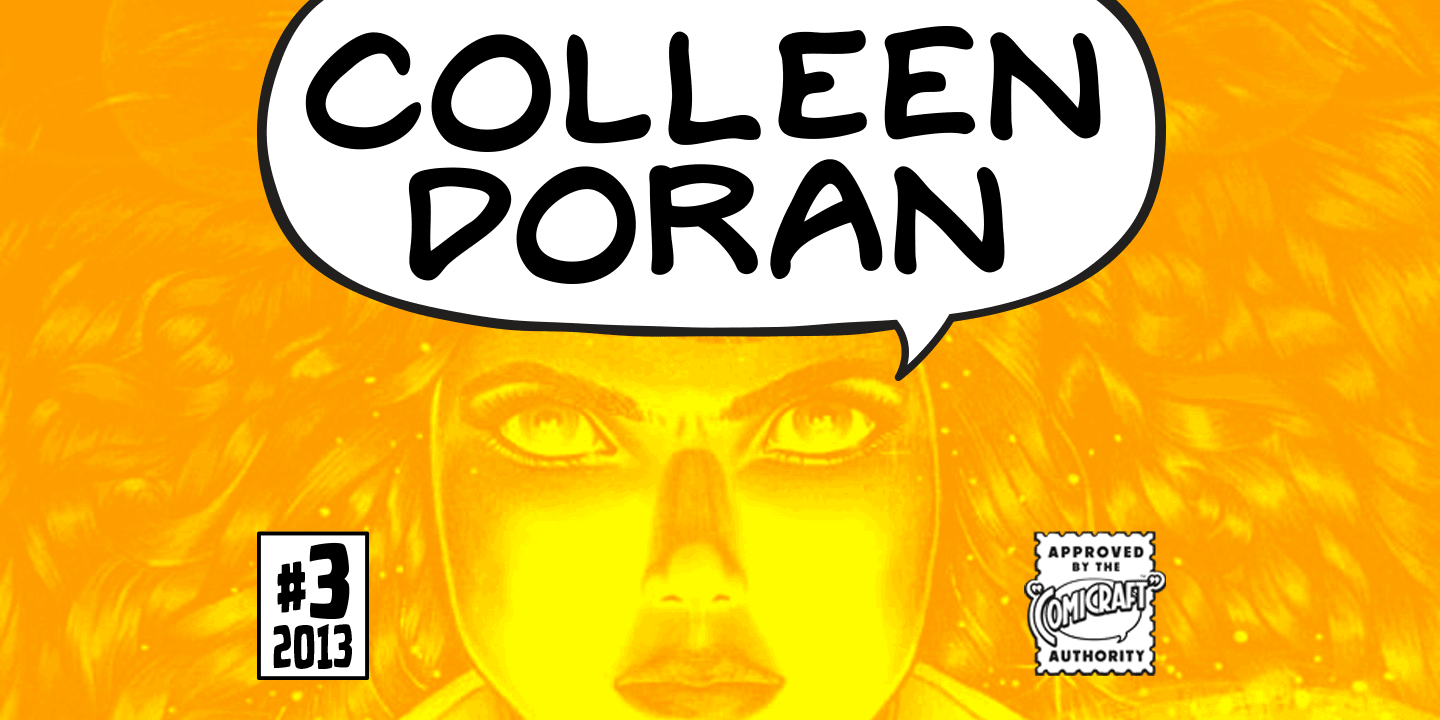
About the Colleen Doran Font
About Colleen Doran Font Family A DISTANT SOIL is a classic bold and beautiful science fiction/fantasy comic book series by creator, writer, artist AND letterer Colleen Doran! A DISTANT SOIL is being remastered and re-released by those awfully nice chaps at Image Comics and Colleen commissioned Comicraft to create the definitive bold and beautiful.
Colleen Doran Font
Colleen Doran font, based on her original pen lettering, so that she might re-letter the series without excessive eye strain or hand cramp. Designers: Colleen Doran, John RoshellPublisher: ComicraftFoundry: ComicraftDesign Owner: ComicraftMyFonts debut: Jul 15, 2013 Colleen Doran